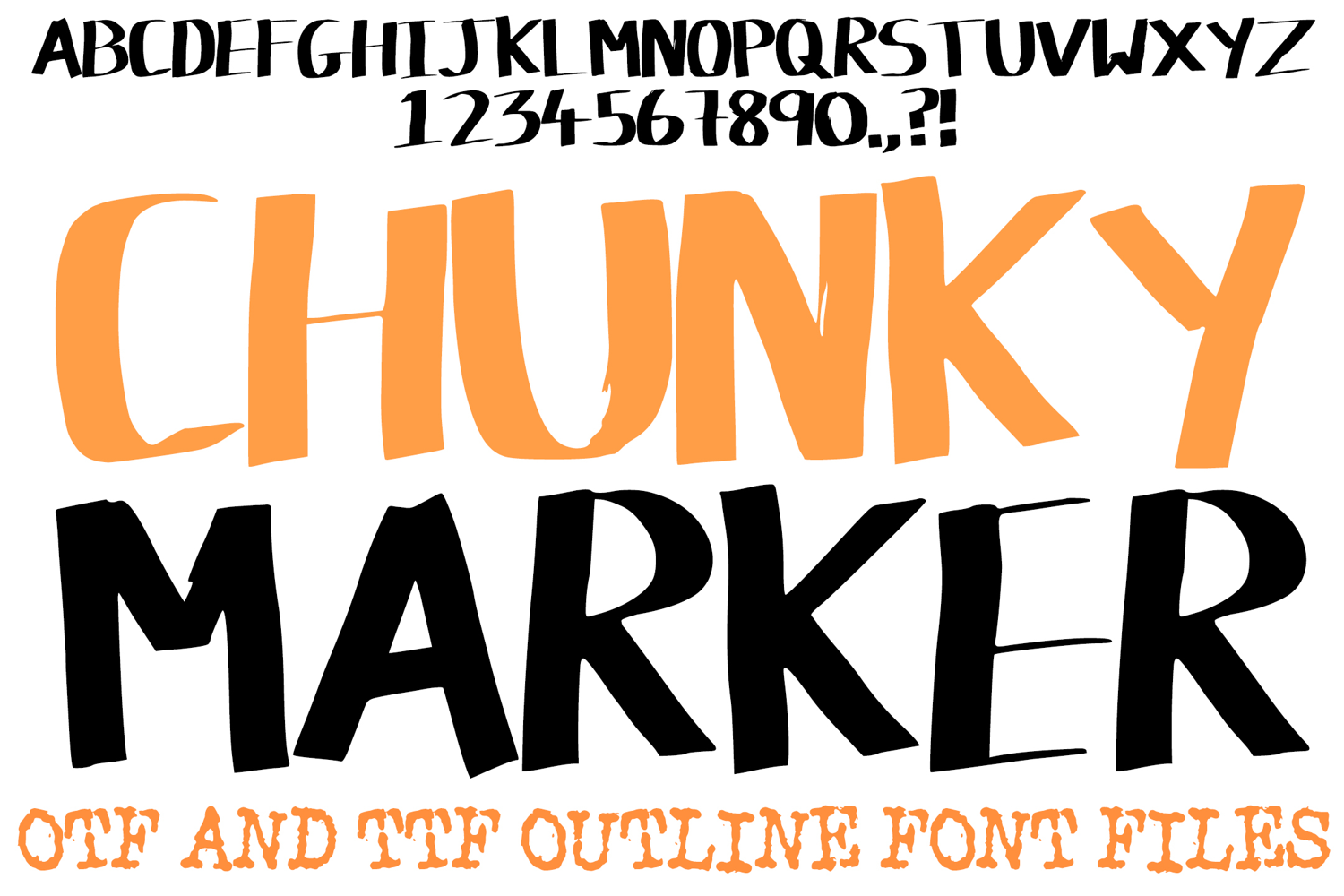
Make your message bold and unmistakable with the Chunky Marker Font! This hand-drawn typeface captures the raw, energetic feel of a real permanent marker, featuring heavy strokes and a unique "ink-bleed" texture at the edges. It is the perfect choice for edgy streetwear branding, high-impact event posters, gritty YouTube thumbnails, and urban-style digital scrapbooking.
The high-contrast, "broad-tip" aesthetic gives every word a sense of urgency and creative flair. Whether you are designing a bold "SALE" banner or creating customized stickers with an artisan, hand-lettered look, the Chunky Marker Font provides a professional yet rebellious vibe that stands out on any background.
Authentic Ink Aesthetic: Every character features realistic hand-written details, including sharp terminal points and heavy ink-saturated curves.
High-Impact Weight: The thick, chunky silhouette ensures your text remains the focal point of any design, even from a distance.